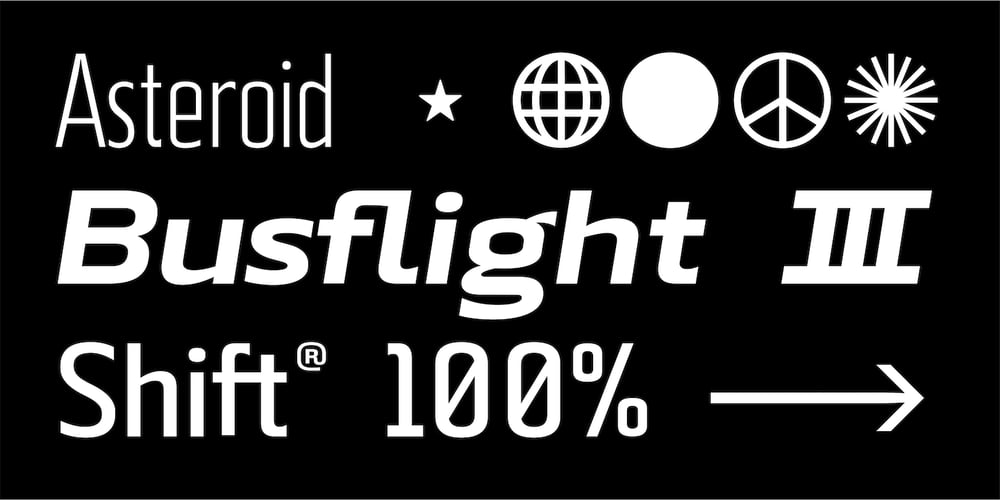
Beriot
Beriot font
Beriot Font Family was designed by Boyan Nurdiansyah and published by Boyanurd. Beriot contains 43 styles and family package options. Beriot is a sans serif whose basics are condensed in Regular (Normal) weight, getting a lot of form inspiration from the topic also known as Steile Futura which is a letterform that Paul Renner himself explored in the mid-1950s, where shapes are constructed with little stress on modular squares but there are changes in certain parts so they become less modular. The Beriot family is available in 42 weights with matching slanted cuts, divided into 3 subfamilies: Condensed, Normal and Expanded. Each has been designed for a range of text sizes each, and already variable, allowing you to choose and make your own type of weight you like. OpenType Features are available in each of these font styles, including alternative characters, different numbers set and case-sensitive and there are additional symbols that make it the perfect choice for professional types of branding, digital design and editorial.